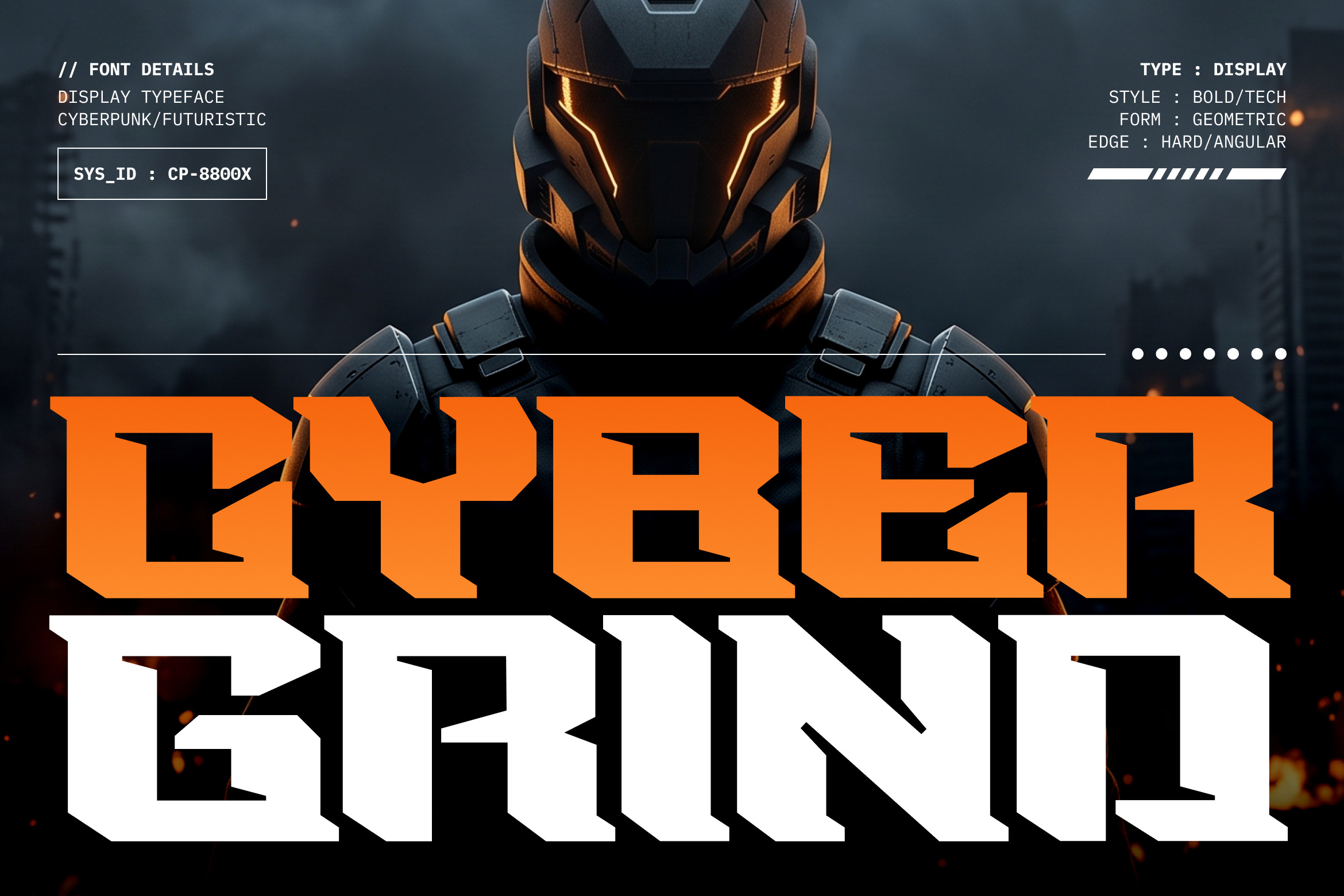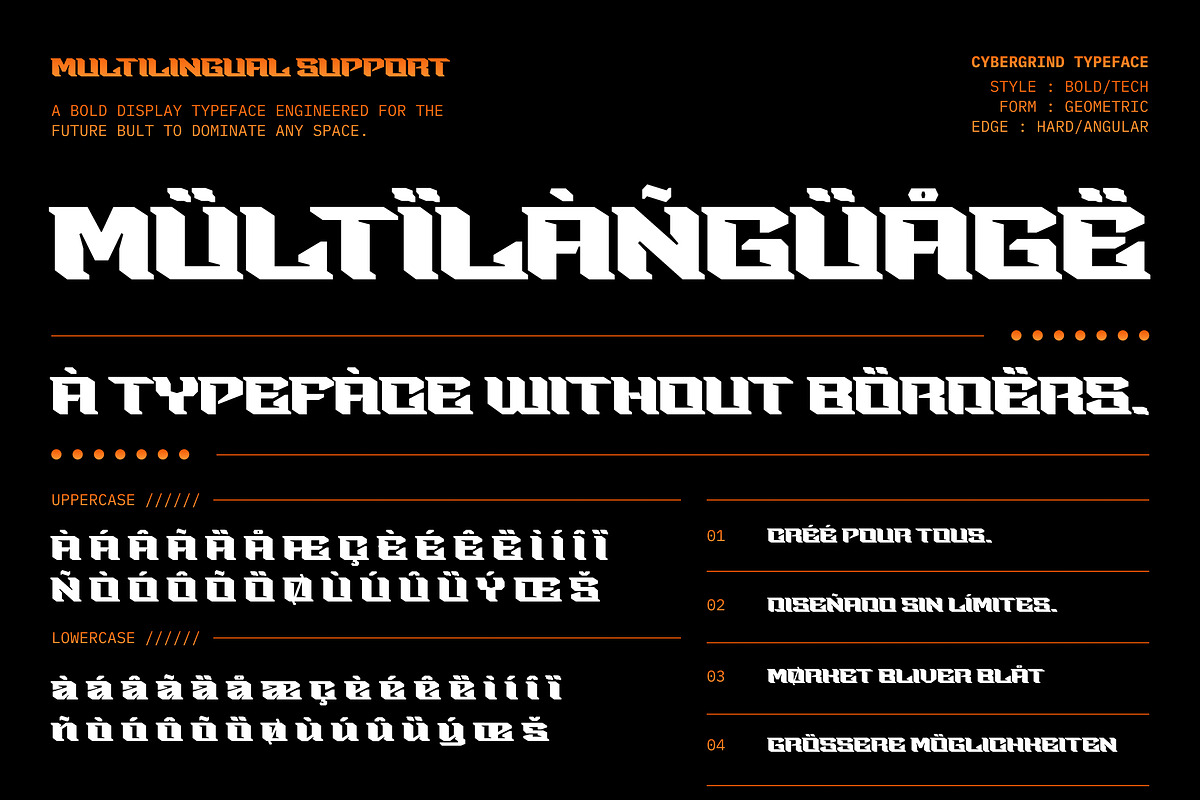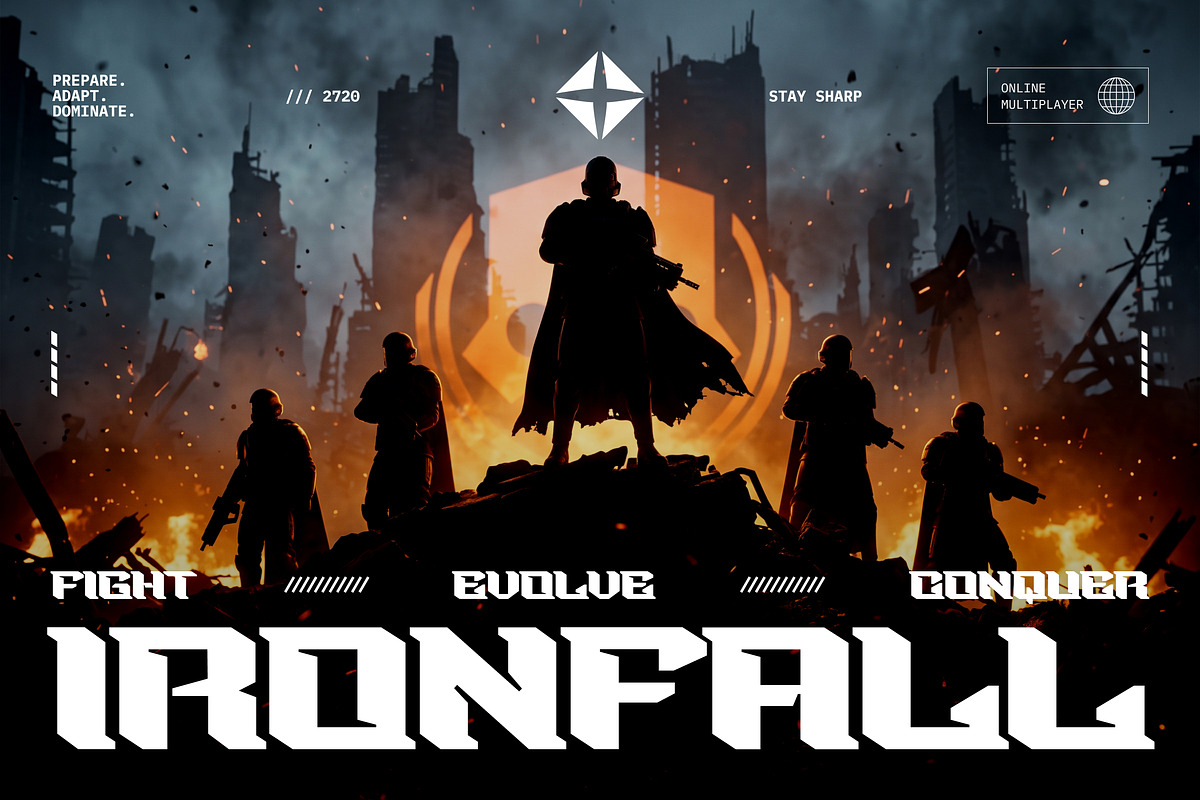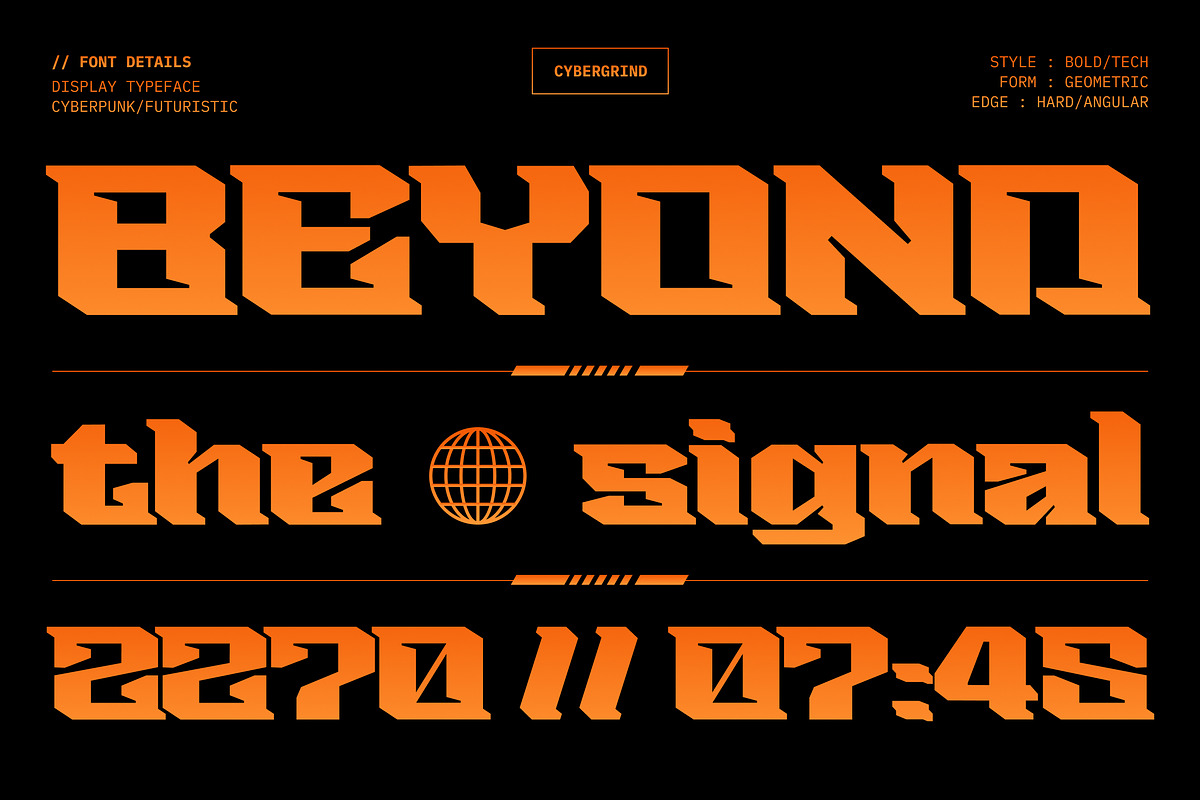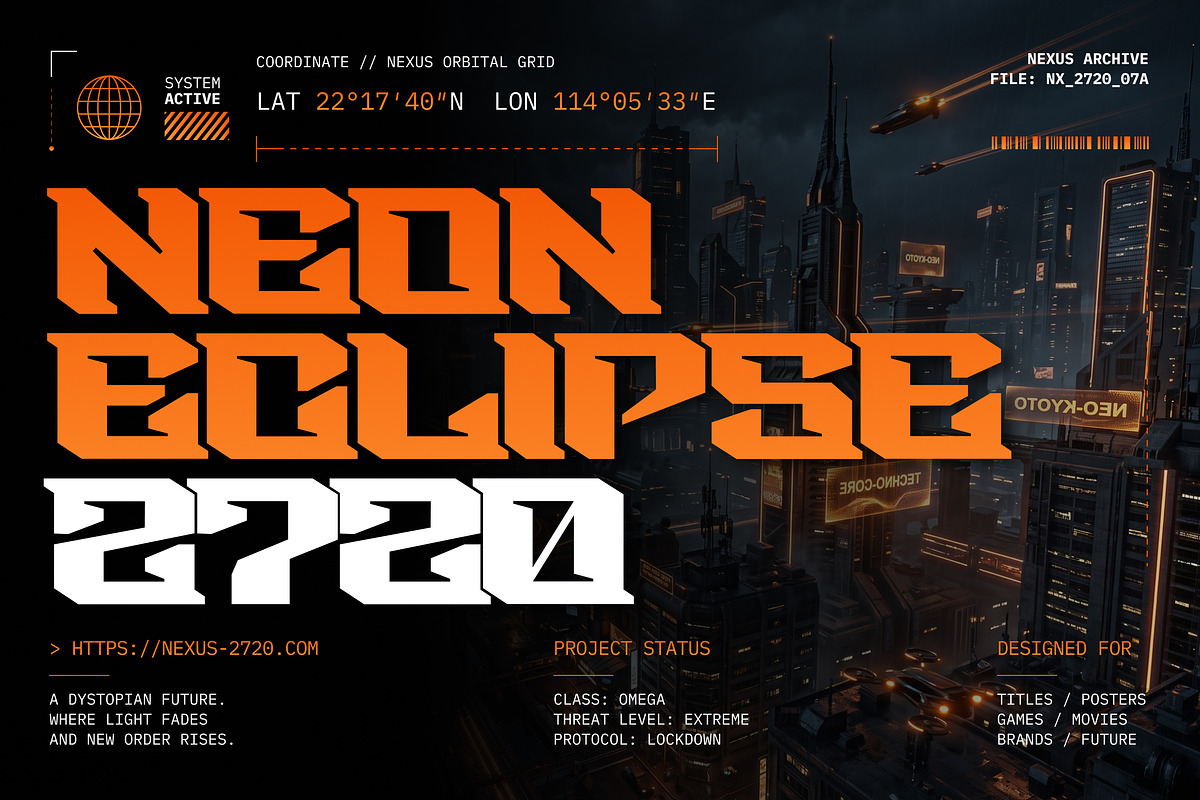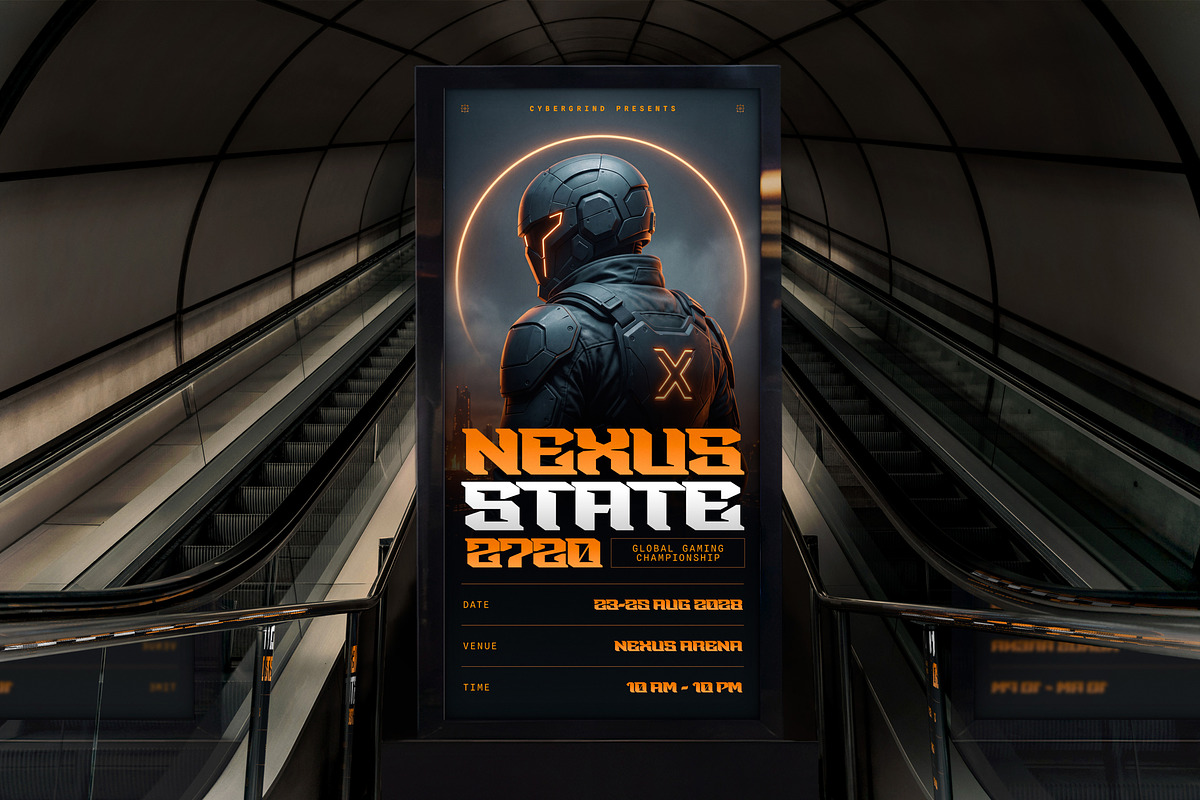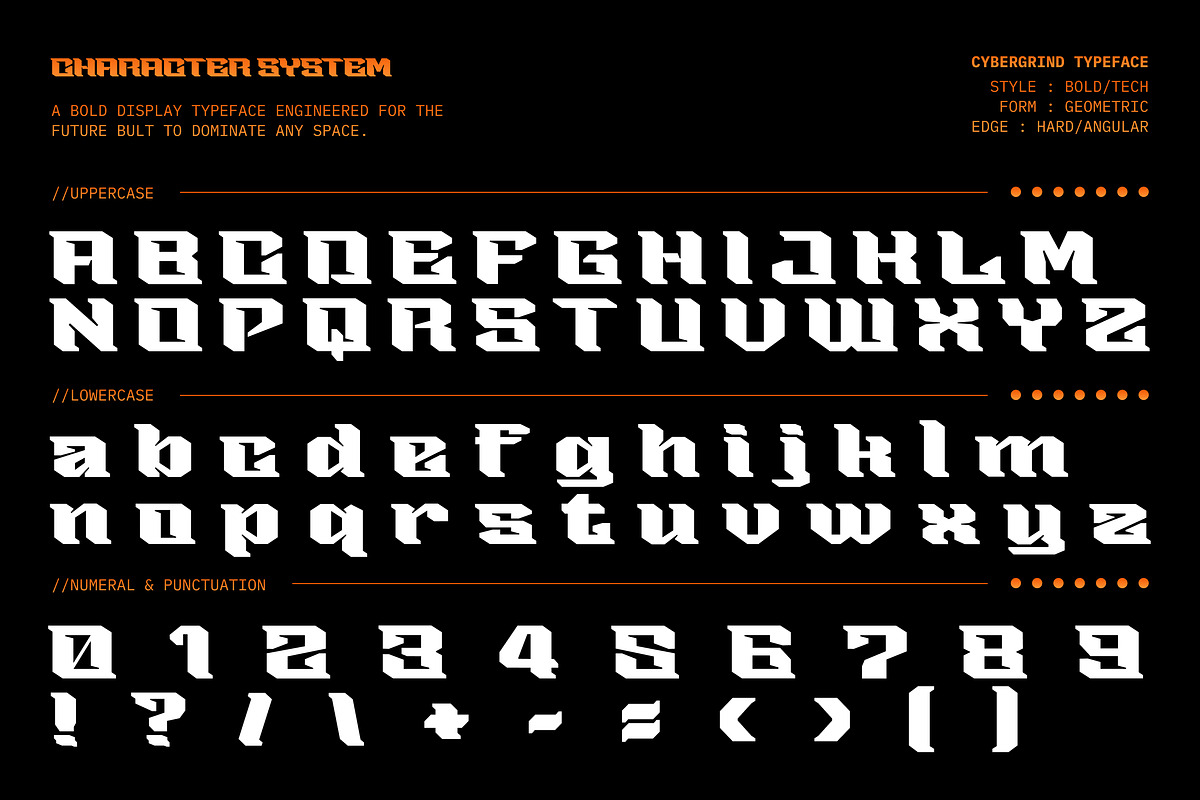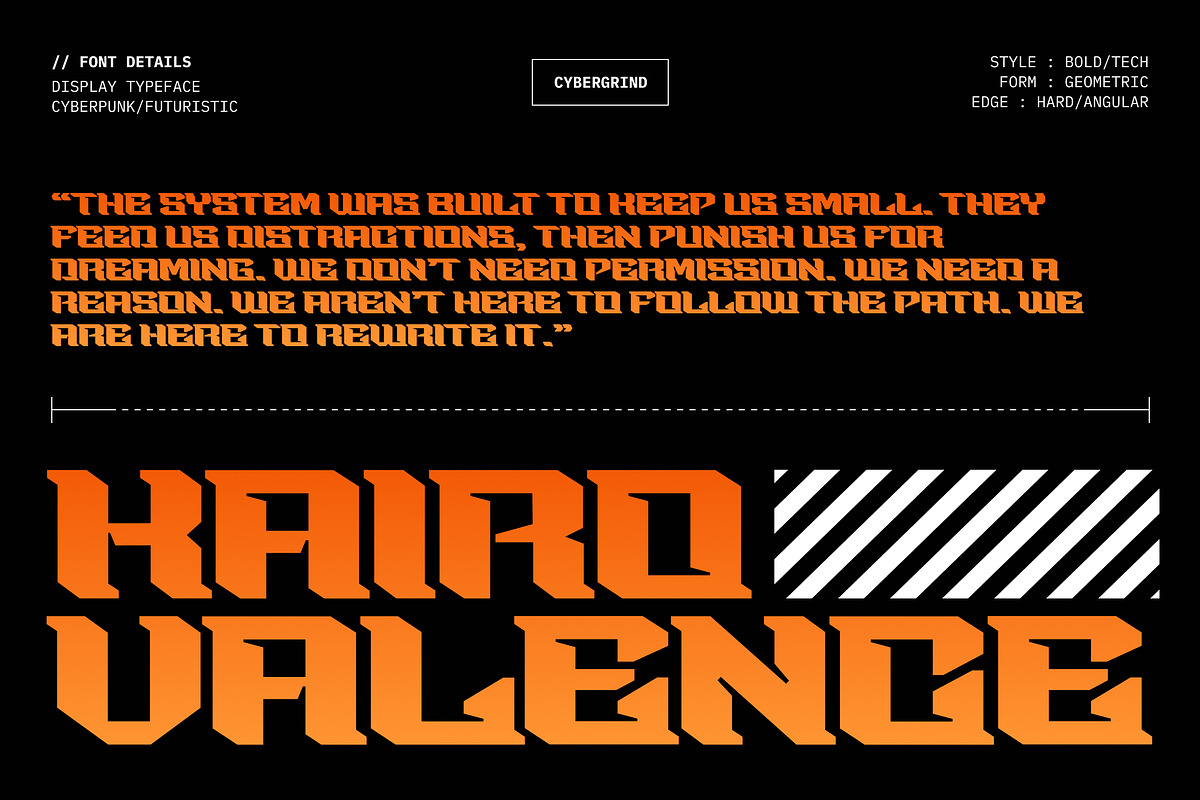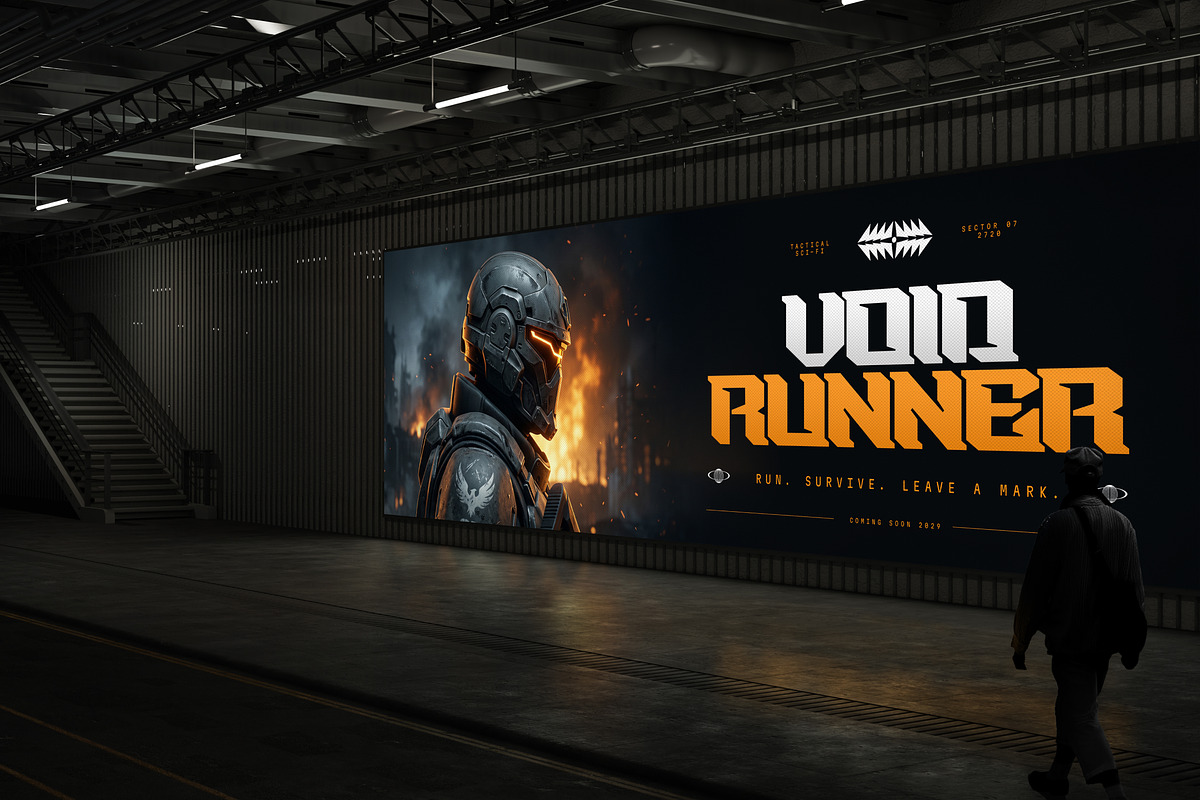
Cybergrind – Cyberpunk Display Font
Cybergrind is a futuristic cyberpunk display font built with sharp geometric forms, angular cuts, and an aggressive sci-fi character.
Designed for high-impact typography, Cybergrind is ideal for posters, gaming graphics, album artwork, branding, apparel, headlines, titles, and futuristic visual identities.
• Futuristic cyberpunk display style
• Bold geometric and angular letterforms
• Uppercase and lowercase characters
• Numbers and punctuation
• OpenType ligatures
• Superscript and fraction features
PERFECT FOR
• Posters and flyers
• Gaming graphics
• Sci-fi and futuristic designs
• Apparel and merchandise
• Branding and logos
• Album and cover artwork
• Headlines and titles
• Social media graphics
Cybergrind is made for designers who need a bold, distinctive typeface with a strong futuristic and cyberpunk aesthetic.